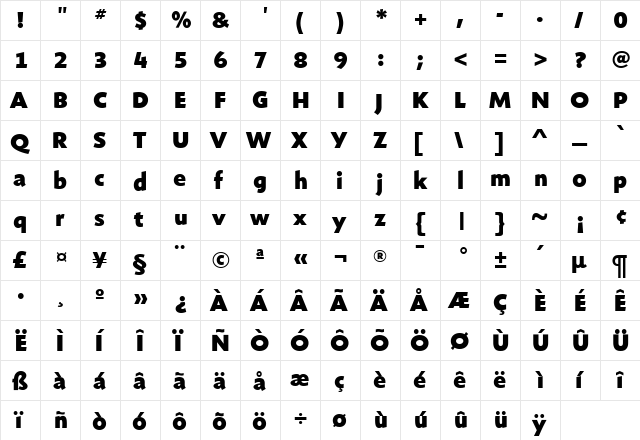
ShinnExtraBold Regular
| Foundry | Red Rooster Typefounders |
Design Context for ShinnExtraBold Typeface
ShinnExtraBold takes a measured approach to typography — its balanced proportions and neutral character make it a reliable workhorse for both digital and print work. The heavy weight commands attention and anchors typographic hierarchies.